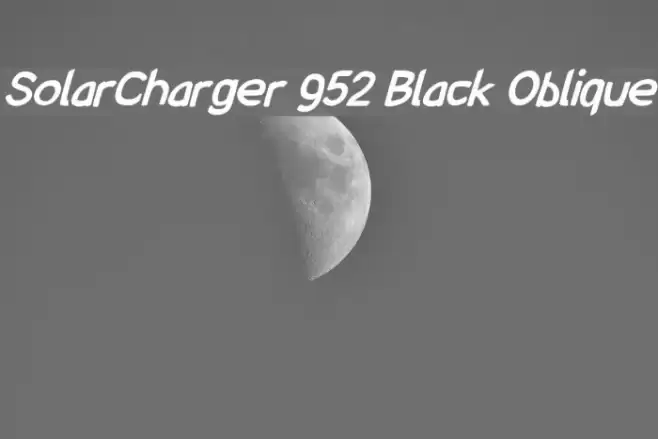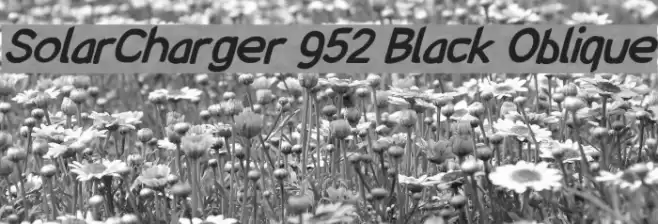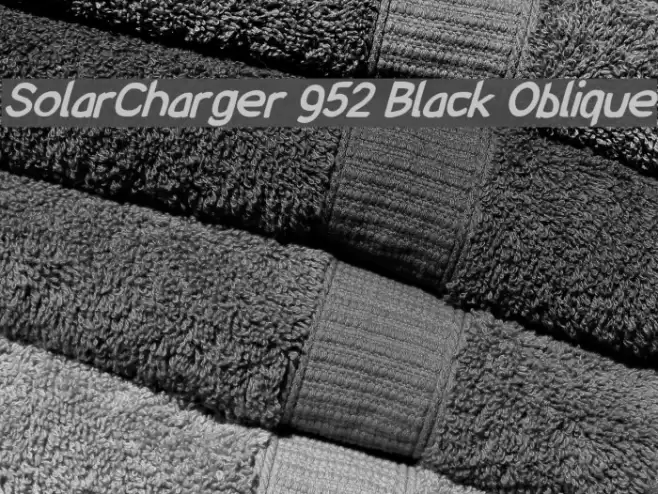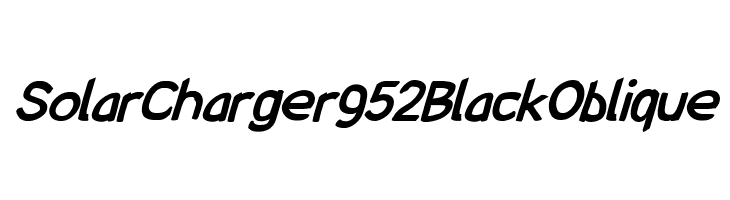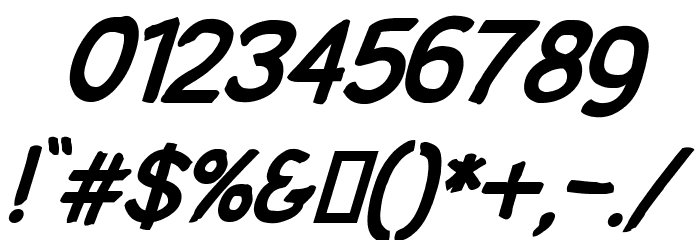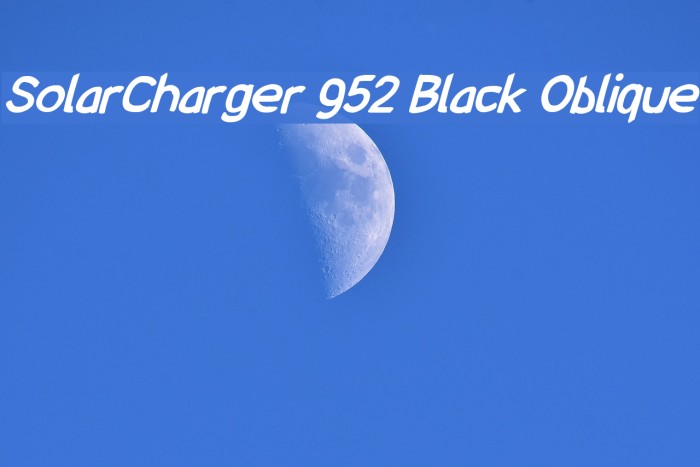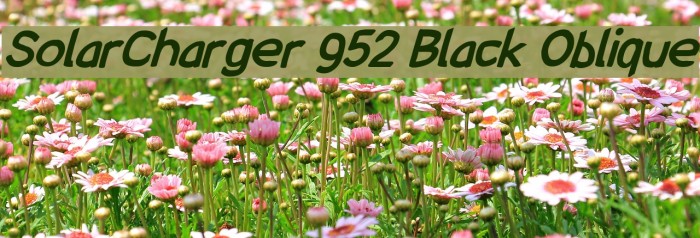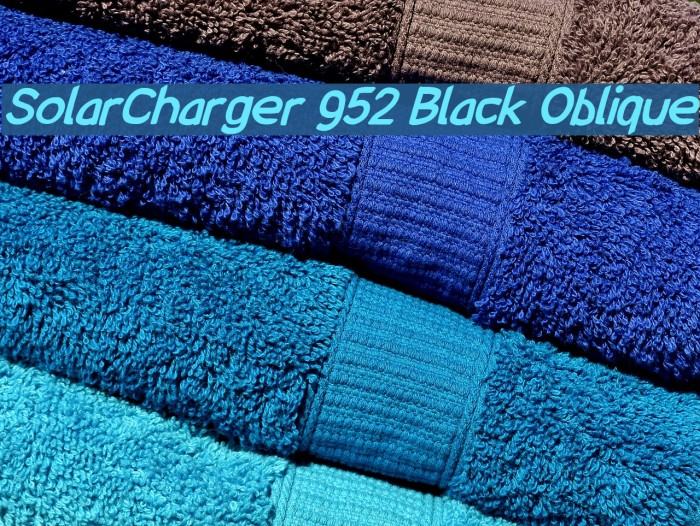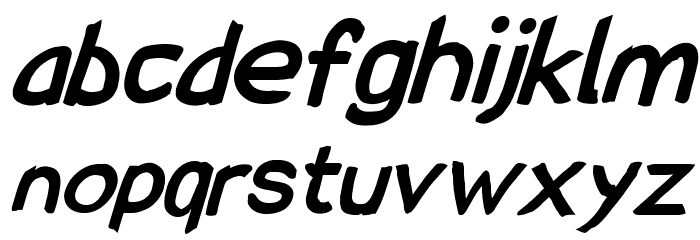
SolarCharger 952 Black Oblique
This font features a dynamic and energetic style with a pronounced oblique slant, giving it a sense of motion and speed. The characters are bold and slightly condensed, with smooth curves and clean lines that enhance readability. The uppercase letters are strong and assertive, while the lowercase letters maintain a consistent flow, making it versatile for various design applications. The numerals are clear and distinct, and the special characters are well-integrated, maintaining the overall aesthetic. This font is ideal for projects that require a modern and impactful look.
A bold, oblique font with a dynamic and energetic style.
- Proposed Projects: Ideal for sports branding, dynamic posters, modern advertising, and tech-related designs.
- Width: Condensed
- Use Case: Headlines, Logos, Posters